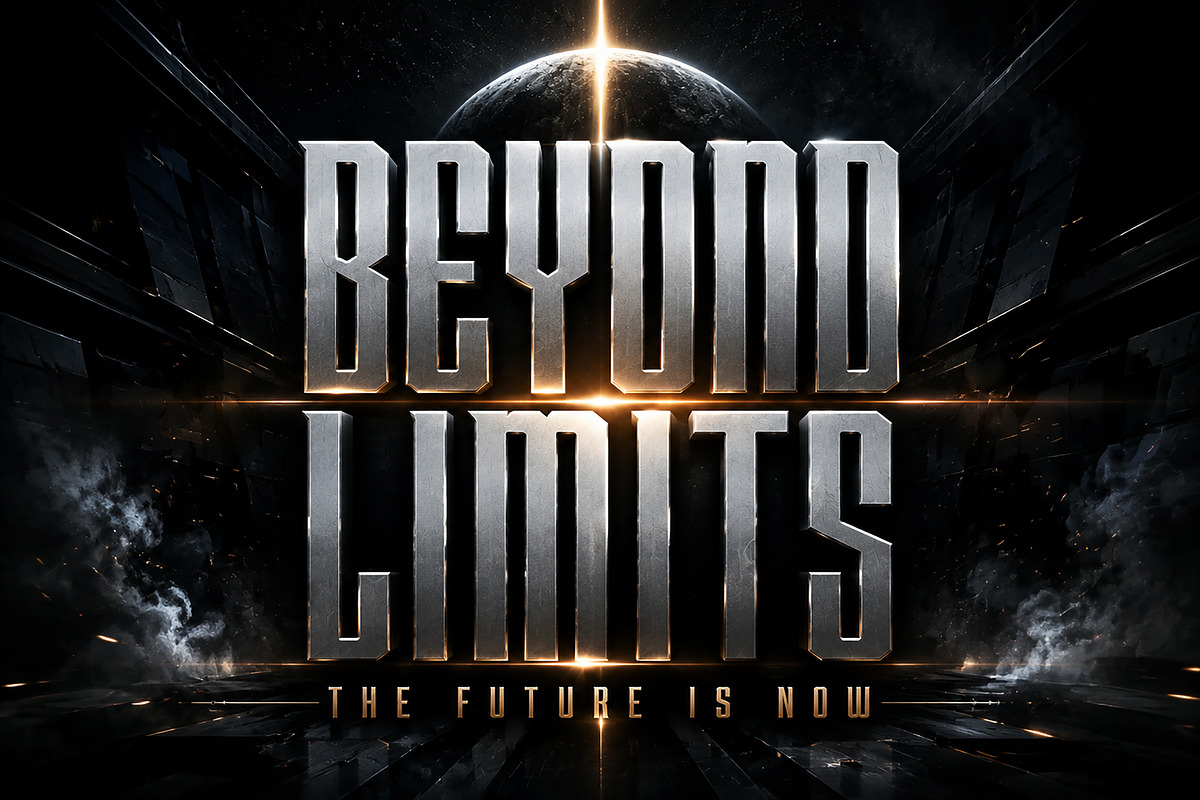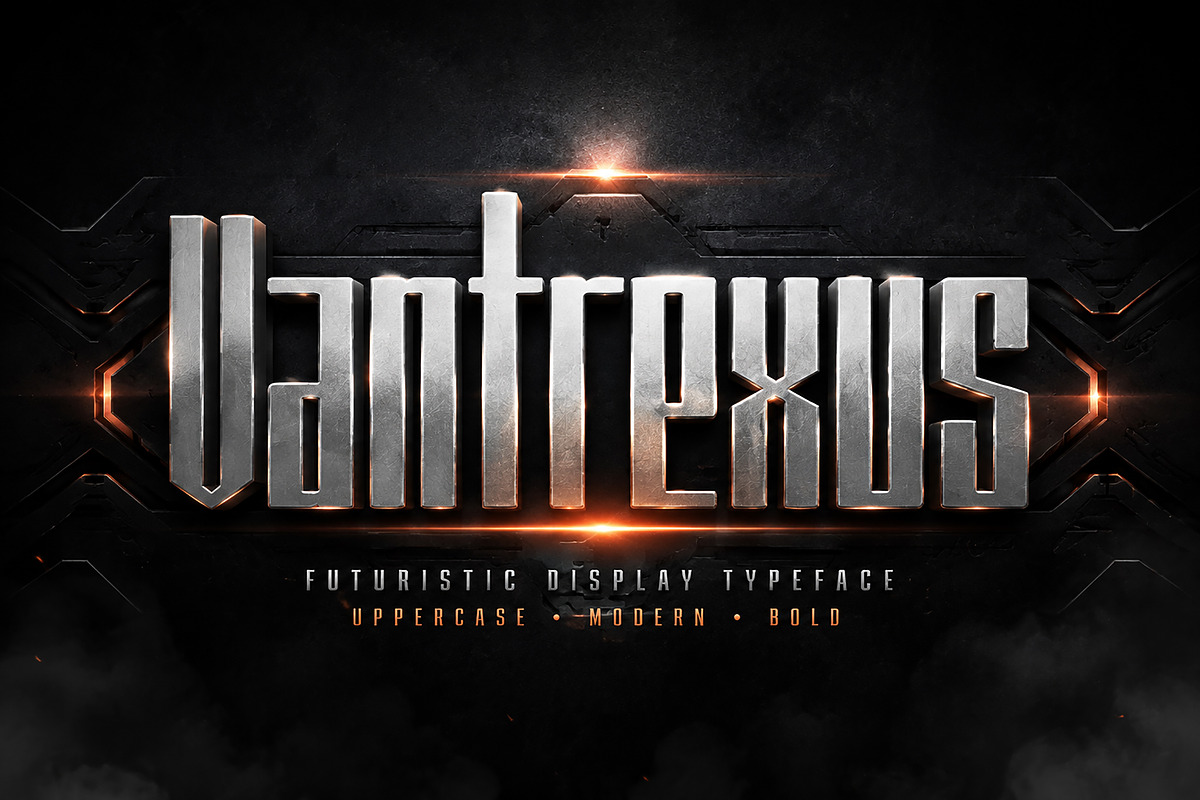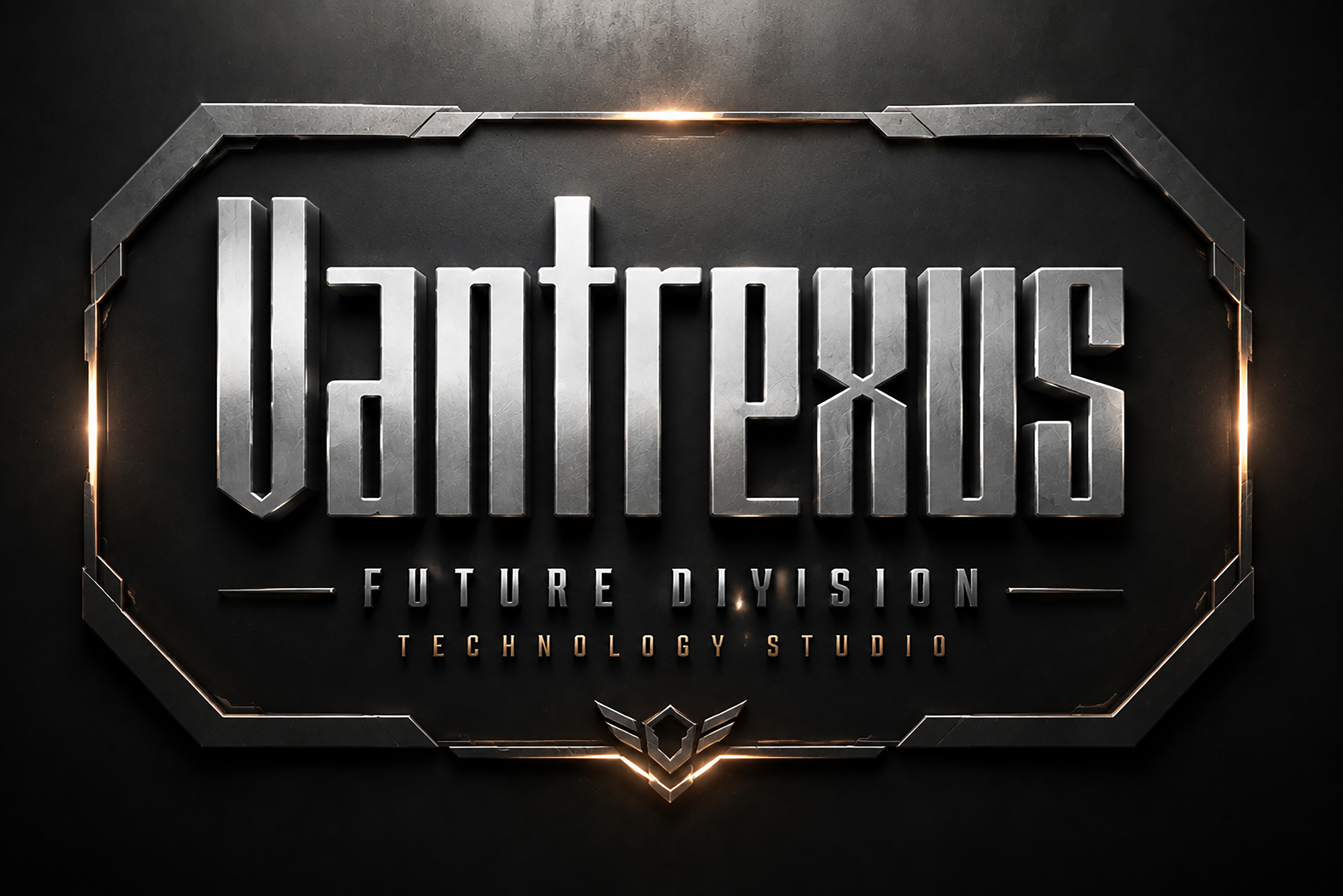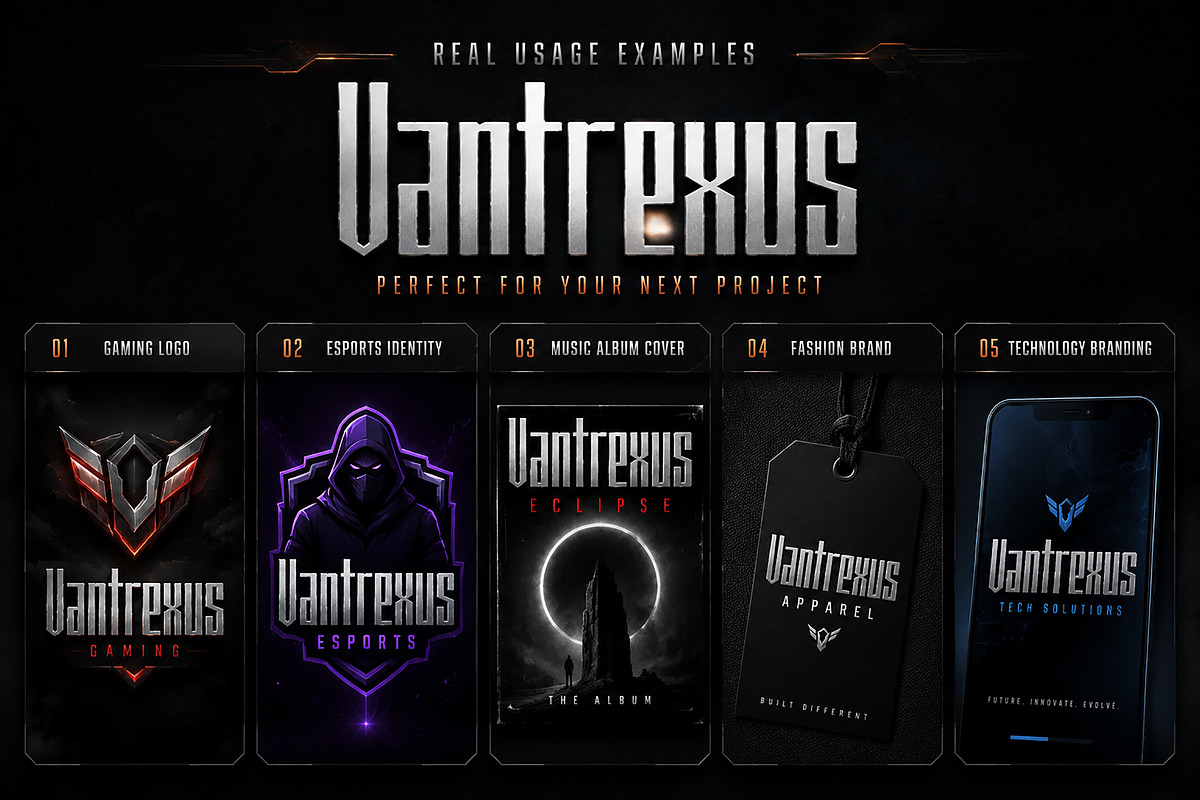
Vantrexus – Display Typeface
Vantrexus – Futuristic Display Typeface
Vantrexus is a bold futuristic display font designed for modern creative projects that need a strong, powerful, and technological visual identity. With its sharp geometric structure and unique sci-fi inspired appearance, Vantrexus brings a premium futuristic feel to logos, branding, gaming designs, posters, headlines, and digital artwork.
This typeface is perfect for designers looking to create impactful visuals with a strong personality. Whether you are designing a gaming logo, esports identity, technology brand, movie title, album cover, fashion label, or promotional artwork, Vantrexus delivers a professional and cinematic look.
Its tall, condensed letterforms create a powerful presence while maintaining a clean and modern aesthetic, making it ideal for both digital and print applications.
Gaming Logo Design
Esports Branding
Technology Branding
Sports Identity
Automotive Branding
Movie Titles
Sci-Fi Posters
Album Covers
Fashion Logos
Advertising & Marketing Designs
Website Headers
✔ Futuristic Display Typeface
✔ Bold Geometric Letter Design
✔ Modern Sci-Fi Inspired Style
✔ Perfect for Logos & Headlines
✔ Professional Branding Font
✔ High Impact Visual Style
✔ Easy to Use for Creative Projects
Create powerful futuristic designs with Vantrexus and give your projects a bold next-generation identity.